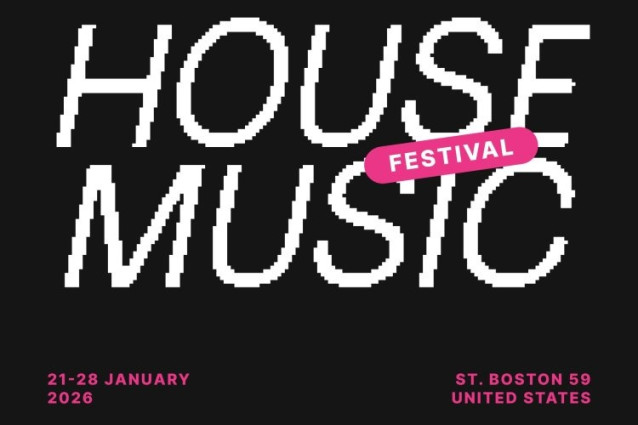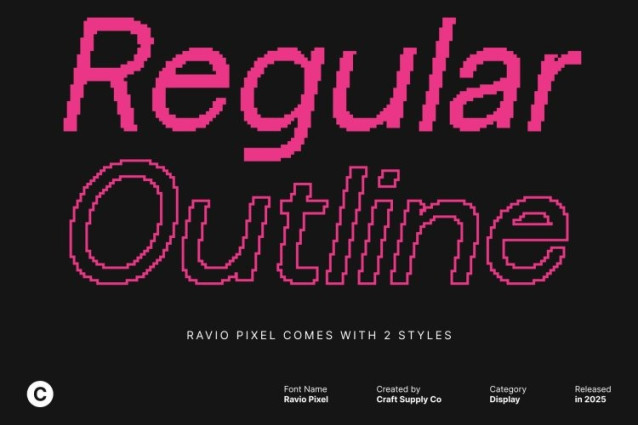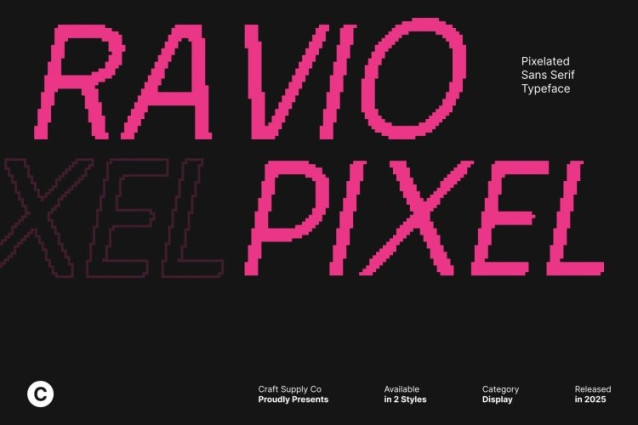
Ravio Pixel Font
Ravio Pixel Font This is a commercially sharp sans serif font designed for clarity, precision, and professional appeal. Its balanced proportions and clean letterforms create a polished, versatile typeface suitable for a wide range of applications. Ideal for advertising, packaging, and corporate branding, this font ensures your designs convey professionalism and contemporary style.
Balanced Proportions for Clarity and Readability
Each character in this font is carefully crafted to maintain visual harmony and readability. The font’s precise structure allows for seamless integration across print and digital media, making it an excellent choice for projects that demand both elegance and legibility. Its well-proportioned forms provide a strong foundation for any modern design.
Pixel Effect Adds Digital Flair and Distinctiveness
Enhanced with a subtle pixel texture, this font introduces a modern digital dimension to its clean sans serif forms. The pixel effect adds uniqueness, creating a contemporary aesthetic that aligns perfectly with digital design, branding, and tech-forward visual projects. It combines professionalism with a fresh, digital-inspired personality.
Perfect for Advertising, Packaging, and Corporate Branding
This font excels across professional applications where precision and modern appeal are key. From advertising campaigns and packaging designs to corporate branding and digital projects, its clean, well-balanced forms and pixel-enhanced style deliver clarity, sophistication, and contemporary impact.